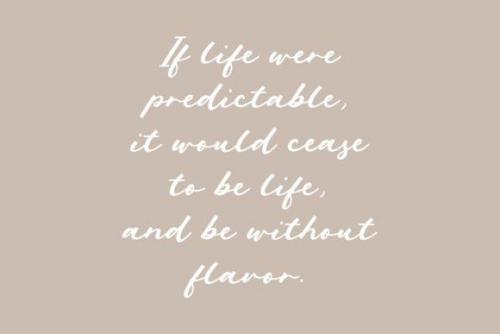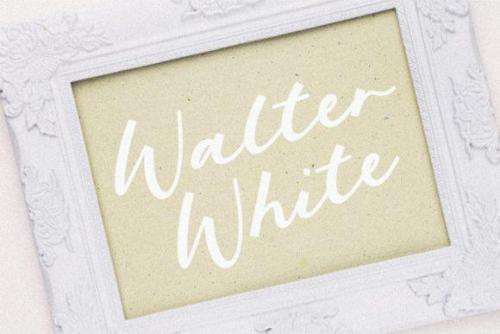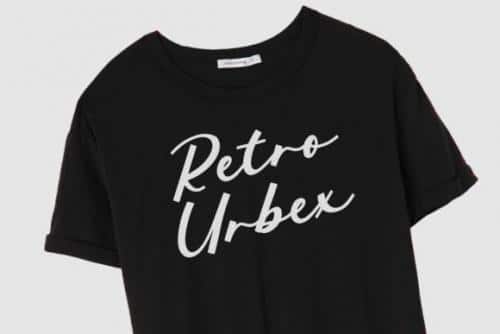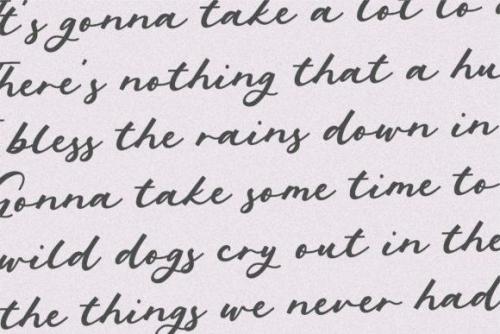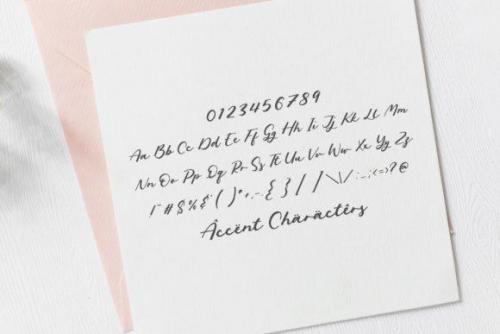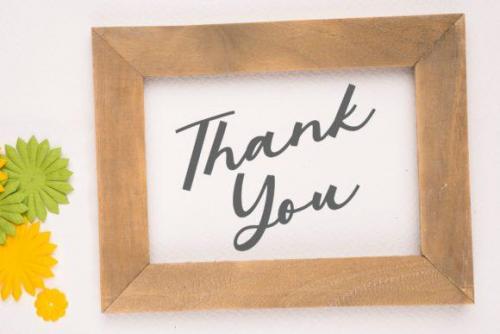
Phantom Rider is a beautiful handwritten font, carefully handcrafted to become a true favorite. Its casual charm makes it appear wonderfully down-to-earth, readable and, ultimately, incredibly versatile. Phantom Rider will look outstanding in any context, whether it’s being used on busy backgrounds or as a standalone headline!